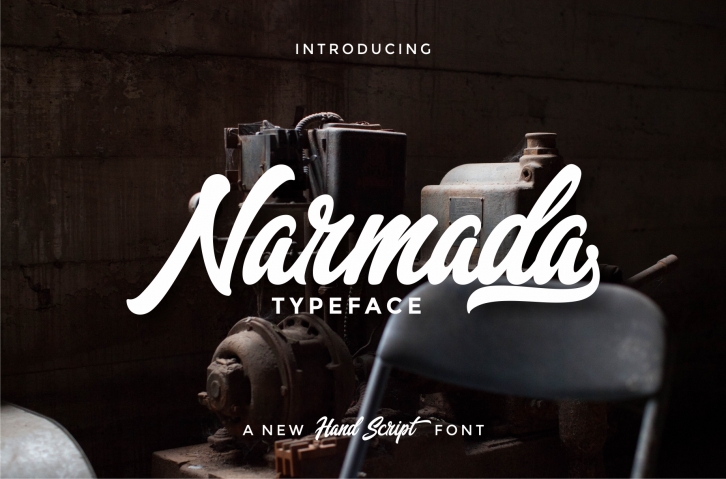
Narmada Typeface is a gorgeous font that was realeased on March 5, 2018. The font can be used in many style contexts and design environments. Perfect for invitations, magazines, websites, logos, and more! It was designed by Ngene and the file size is 16.5 MB. Thanks for checking out this font!